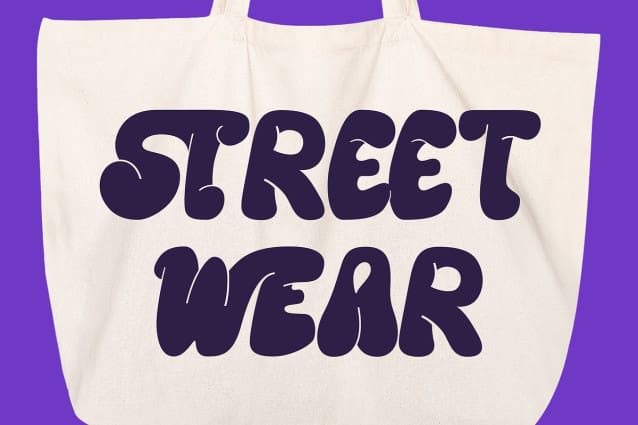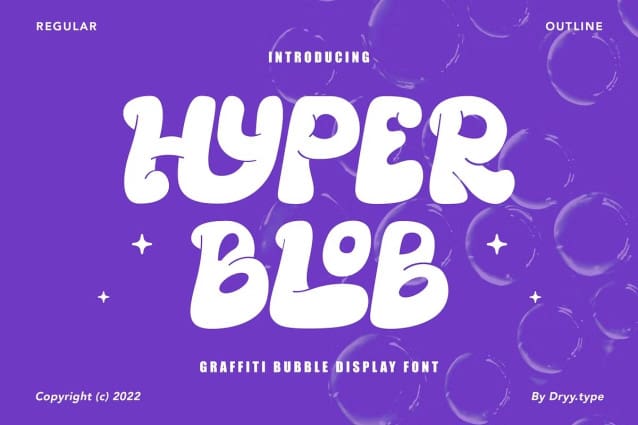
Hyper Blob Font
Hyper blob font is, as the name suggests, a hypebeast and unique display font. This font I’ve created has been in heavy use this year & is very versatile, goes well with a variety of designs, elevating it to the highest level. Add this font to your favorite creative ideas and see the results!